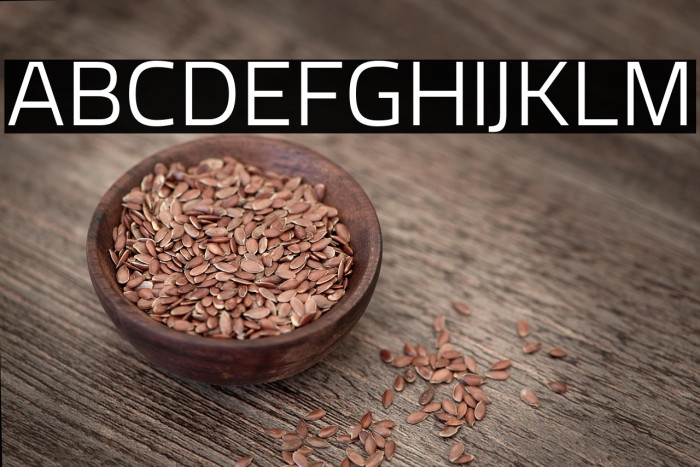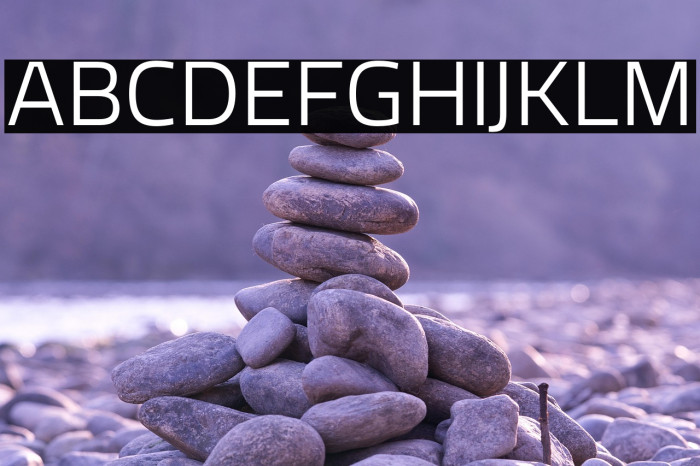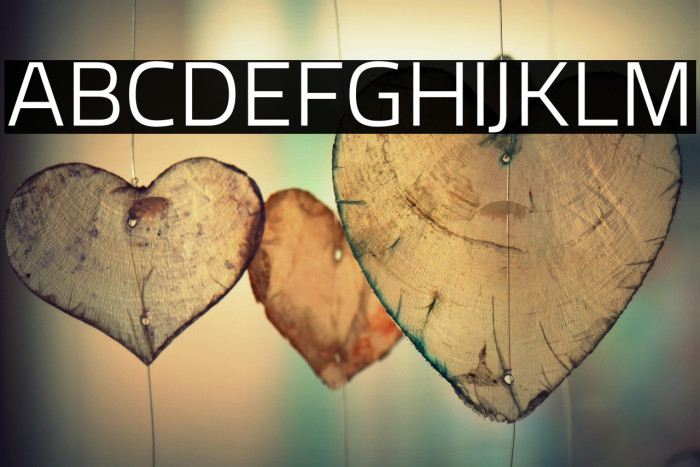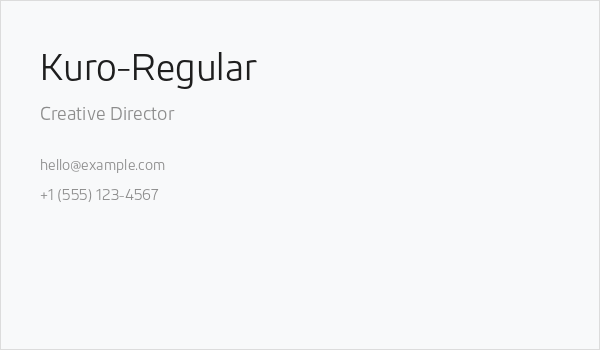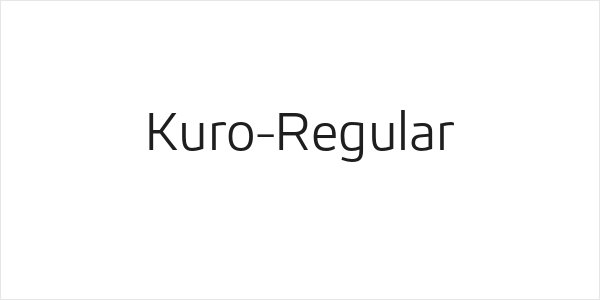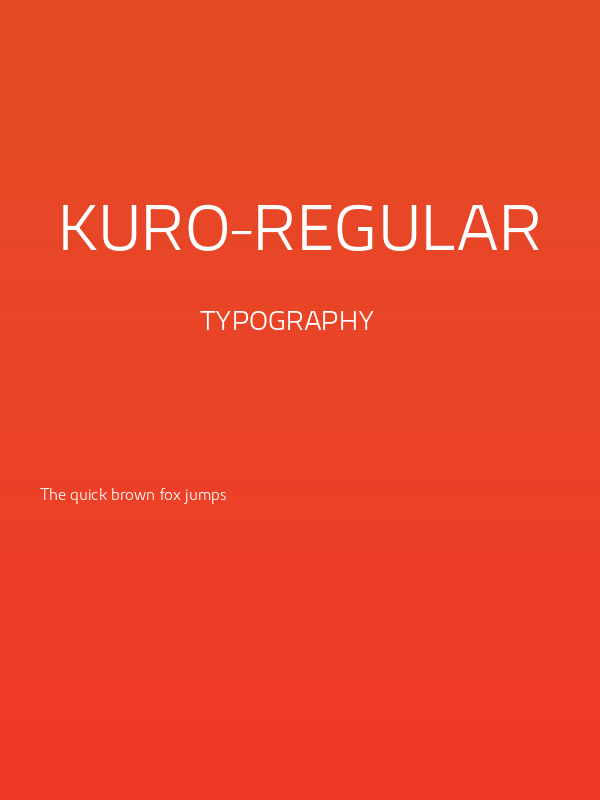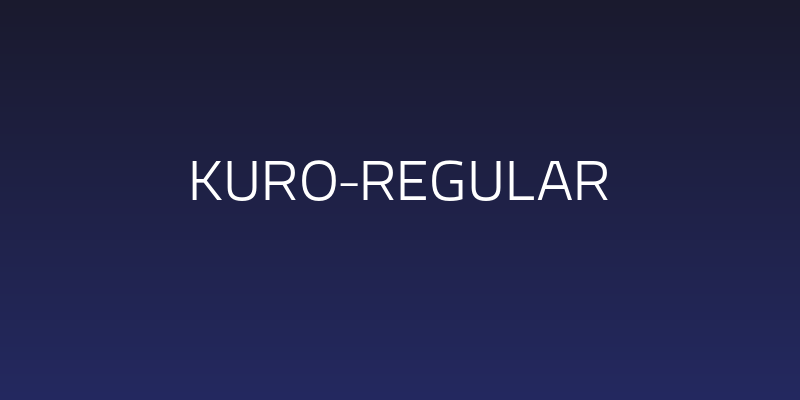
Kuro-Regular Font
Kuro-Regular Description
This font features a clean and modern sans-serif design with a focus on simplicity and readability. The characters are well-proportioned, offering a harmonious balance between height and width. The strokes are consistent and smooth, providing a sleek appearance. The font maintains a uniform stroke weight across all characters, contributing to its contemporary and professional look. The spacing between characters is normal, ensuring clarity and legibility in both large and small sizes. This font is versatile, suitable for a wide range of applications from digital to print media.
| Proposed Projects | Ideal for corporate branding, web design, user interfaces, and editorial layouts. |